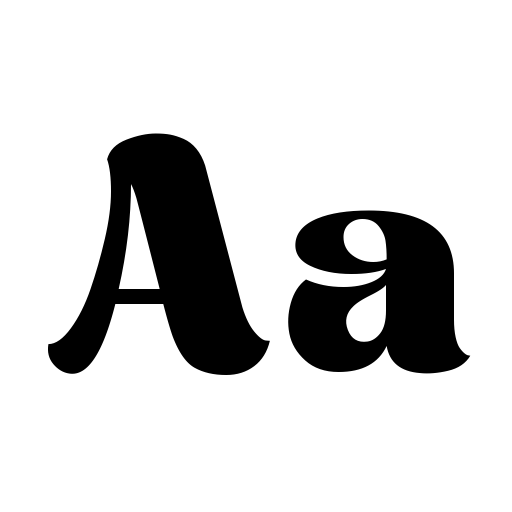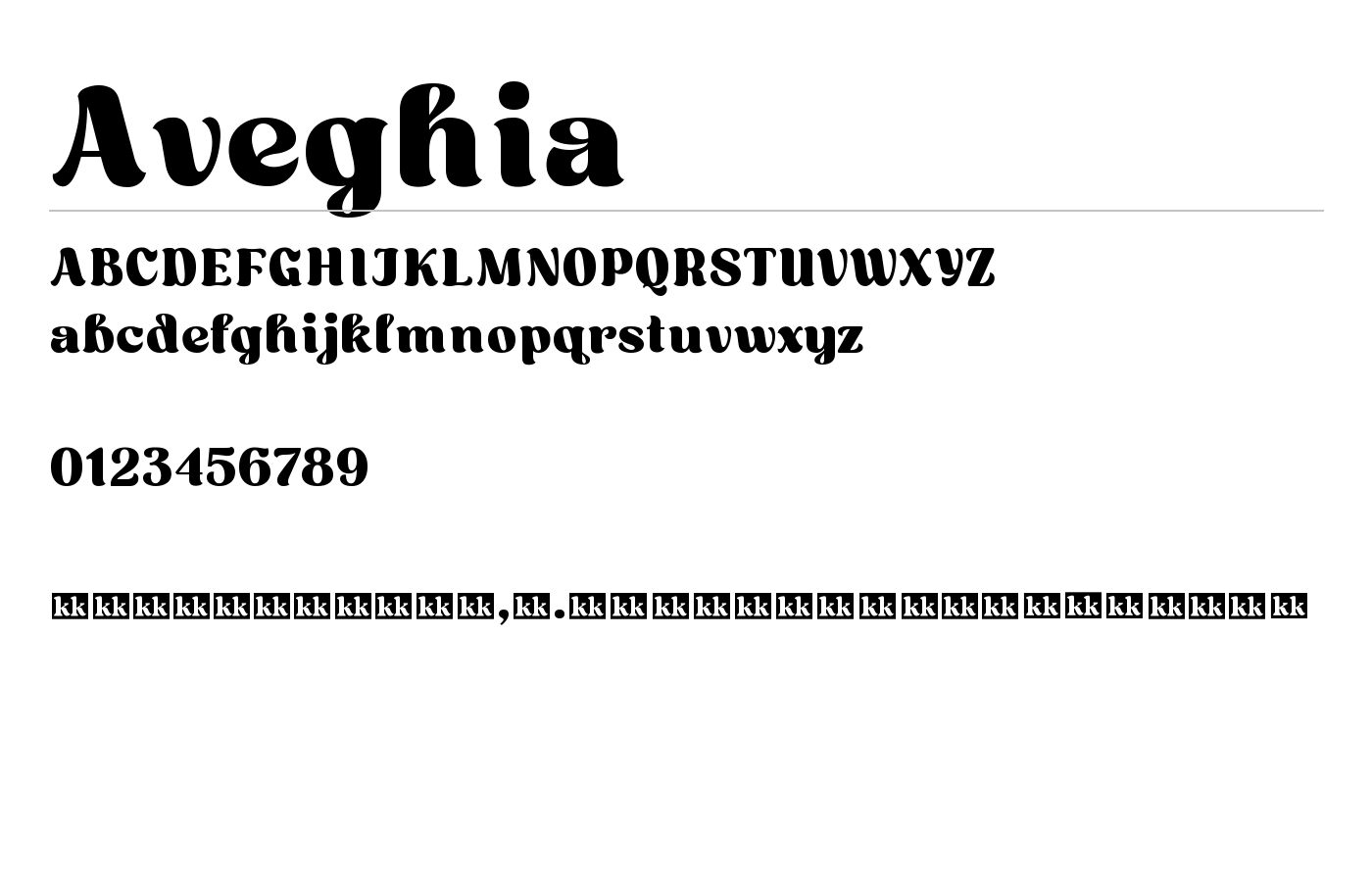
Aveghia is a bold and charming slab serif font with a strong personality, featuring thick, rounded serifs and playful, slightly quirky letterforms that blend vintage appeal with modern flair. Its high contrast strokes and unique shapes make it ideal for headline use in branding, packaging, and editorial design where a friendly yet confident tone is desired. This font stands out for its decorative style and clear readability, bringing warmth and character to creative projects.
Aveghia Font
About Aveghia Font